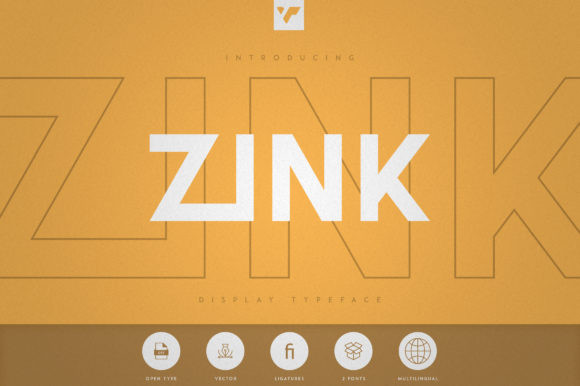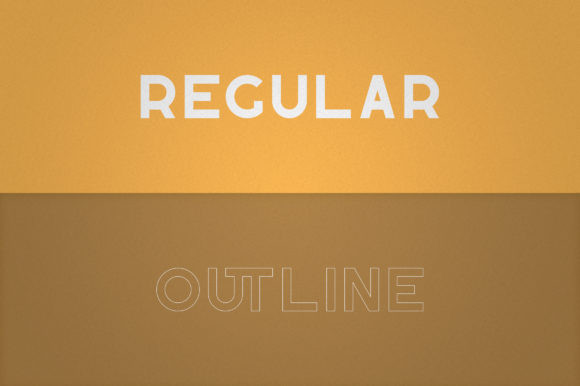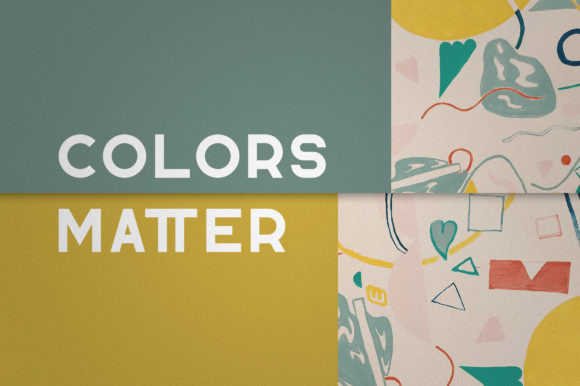
Zink Font
Zink is a bold and thick lettered display font featuring the perfect amount of trendiness. Whether you’re using it for crafting, digital designing, presentations or greeting cards making, it’s perfect!